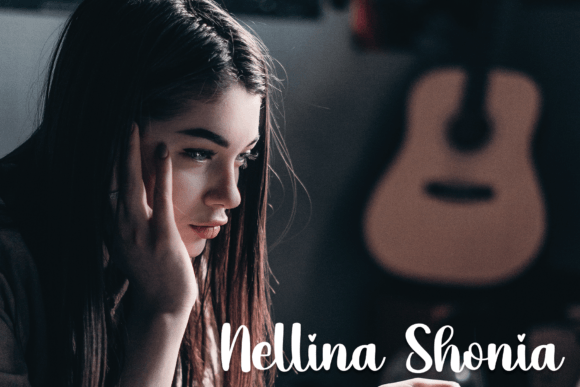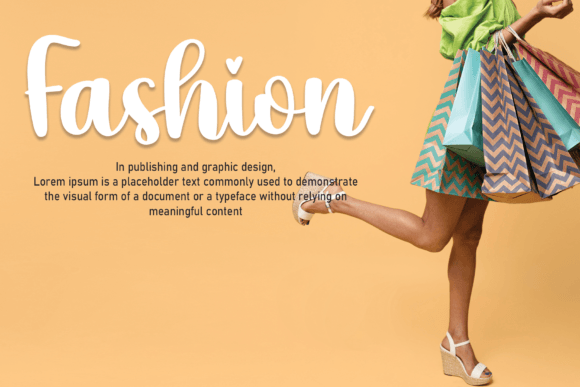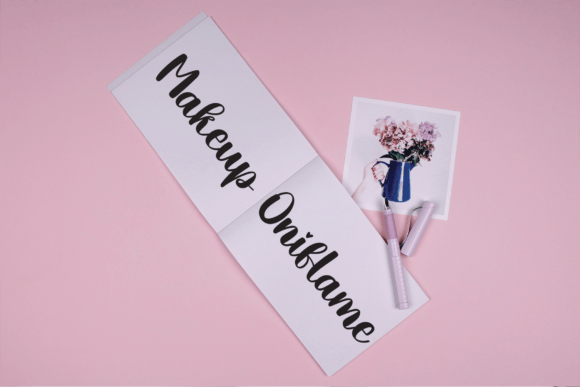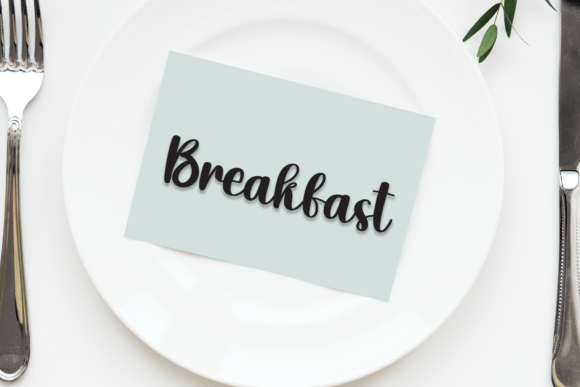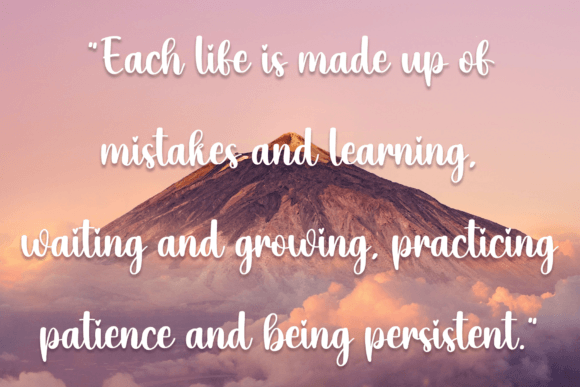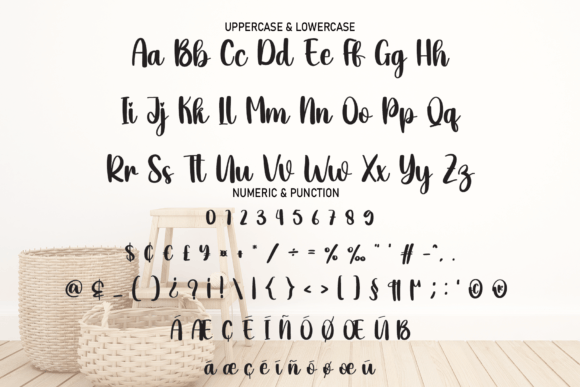
Introducing Handcraft Font: Elevate Your Designs with a Personal Touch
In the world of design, a handwritten touch can make all the difference. It adds a level of personalization and uniqueness that sets your work apart from the rest. Handcraft Font is here to revolutionize your designs with its latest style letters, perfect for a wide range of applications. From wall displays to wedding invitations, social media post logos to product packaging, Handcraft Font is the ultimate solution for designers and crafters looking to infuse their work with a touch of elegance and sophistication.
The Versatility of Handcraft Font
Handcraft Font is incredibly versatile, making it suitable for various design projects. Here are some of the ways you can use Handcraft Font to elevate your designs:
- Wall Displays: Create stunning wall art with Handcraft Font. Whether you’re designing a motivational quote, a funny saying, or a personalized message, Handcraft Font is sure to make your wall display stand out.
- Wedding Invitations: Add a touch of romance and elegance to your wedding invitations with Handcraft Font. Its beautiful, handwritten letters will set the tone for a memorable and special day.
- Social Media Post Logos: Make your social media posts more engaging with Handcraft Font. Use it to create eye-catching logos, headers, or quotes that will grab the attention of your followers.
- Advertisements: Handcraft Font is perfect for creating ads that stand out. Whether you’re designing a print ad, a digital banner, or a social media ad, Handcraft Font will help you grab the attention of your target audience.
- Product Packaging: Add a personal touch to your product packaging with Handcraft Font. Make your products more appealing and memorable with beautiful, handwritten labels.
- Product Designs: Use Handcraft Font to create stunning product designs. Whether you’re designing a t-shirt, a mug, or a phone case, Handcraft Font will add a touch of elegance and sophistication to your work.
- Labels: Create beautiful labels with Handcraft Font. Perfect for product labels, address labels, or any other type of label, Handcraft Font will make your labels stand out.
- Photography: Add a watermark to your photos with Handcraft Font. Protect your work and make it more memorable with a beautiful, handwritten watermark.
- Invitations: Handcraft Font is perfect for creating invitations for any occasion. Whether you’re planning a birthday party, a graduation ceremony, or a baby shower, Handcraft Font will help you create beautiful and memorable invitations.
- Stationery: Elevate your stationery with Handcraft Font. Create beautiful notebooks, journals, or greeting cards with Handcraft Font’s stunning handwritten letters.
The Benefits of Using Handcraft Font
Handcraft Font offers numerous benefits to designers and crafters. Here are some of the advantages of using Handcraft Font:
- Unique and Personalized: Handcraft Font adds a personal touch to your designs, making them unique and memorable.
- Elegant and Sophisticated: Handcraft Font’s beautiful, handwritten letters will elevate your designs and give them a touch of elegance and sophistication.
- Versatile: Handcraft Font is suitable for a wide range of design projects, making it a valuable asset for designers and crafters.
- Easy to Use: Handcraft Font is easy to use and integrate into your designs. Whether you’re a professional designer or a beginner, Handcraft Font is easy to work with.
Tips for Using Handcraft Font
Here are some tips for using Handcraft Font:
- Experiment with Different Colors: Handcraft Font looks great in various colors. Experiment with different colors to find the one that works best for your design.
- Play with Font Sizes: Handcraft Font is beautiful in different font sizes. Play with font sizes to create visual interest and hierarchy in your design.
- Combine with Other Fonts: Handcraft Font pairs well with other fonts. Experiment with combining Handcraft Font with other fonts to create a unique and interesting design.
- Use it for Headlines and Titles: Handcraft Font is perfect for headlines and titles. Use it to create eye-catching headlines and titles that grab the attention of your audience.
Handcraft Font is a valuable asset for designers and crafters looking to add a personal touch to their work. Its versatility, elegance, and sophistication make it perfect for a wide range of design projects. Whether you’re designing a wall display, a wedding invitation, or a product label, Handcraft Font is sure to elevate your designs and make them more memorable. So why wait? Try Handcraft Font today and take your designs to the next level!